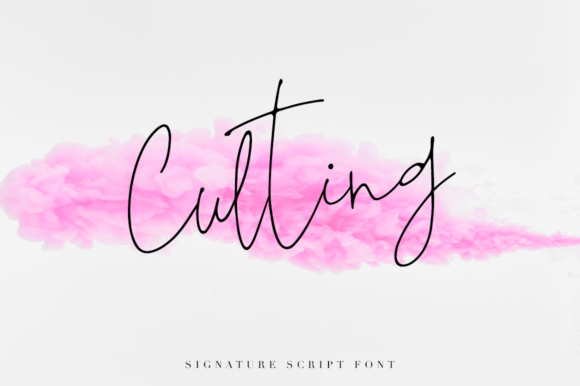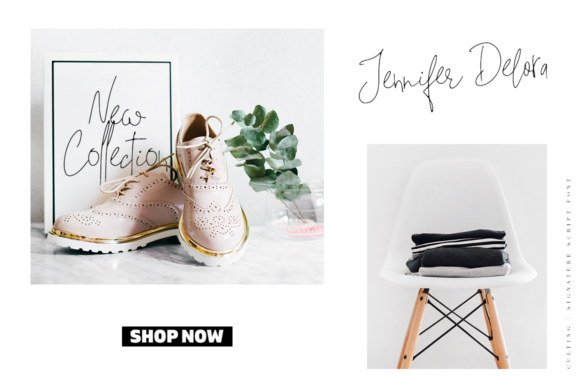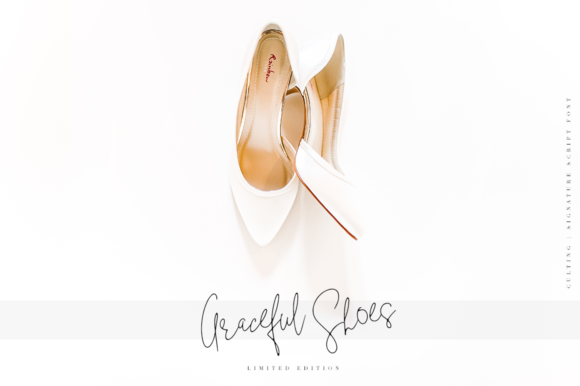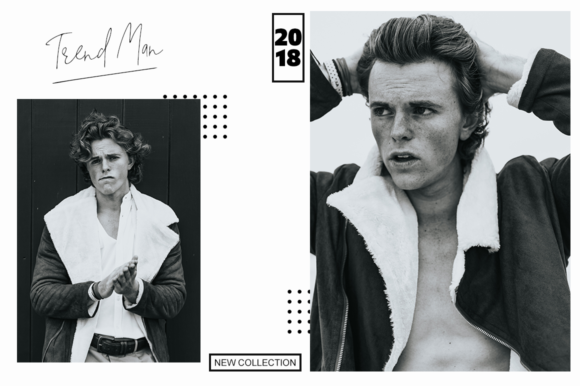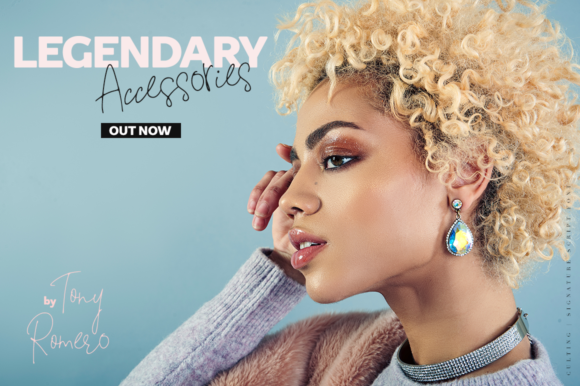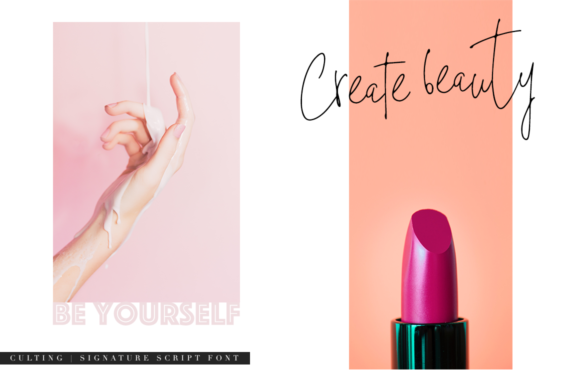
Culting Font
Culting is a beautiful, signature monoline font that is ideal for branding and decorating your projects. This font looks great in print, and works best in larger formats.